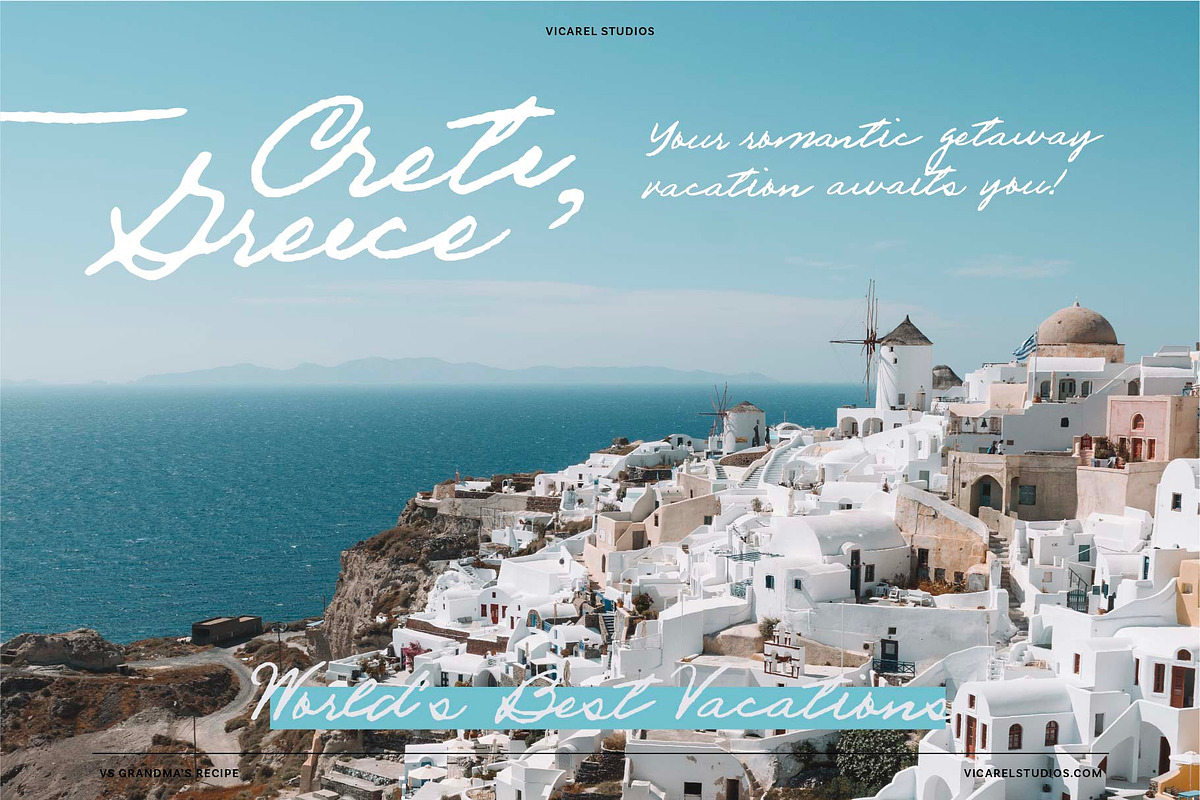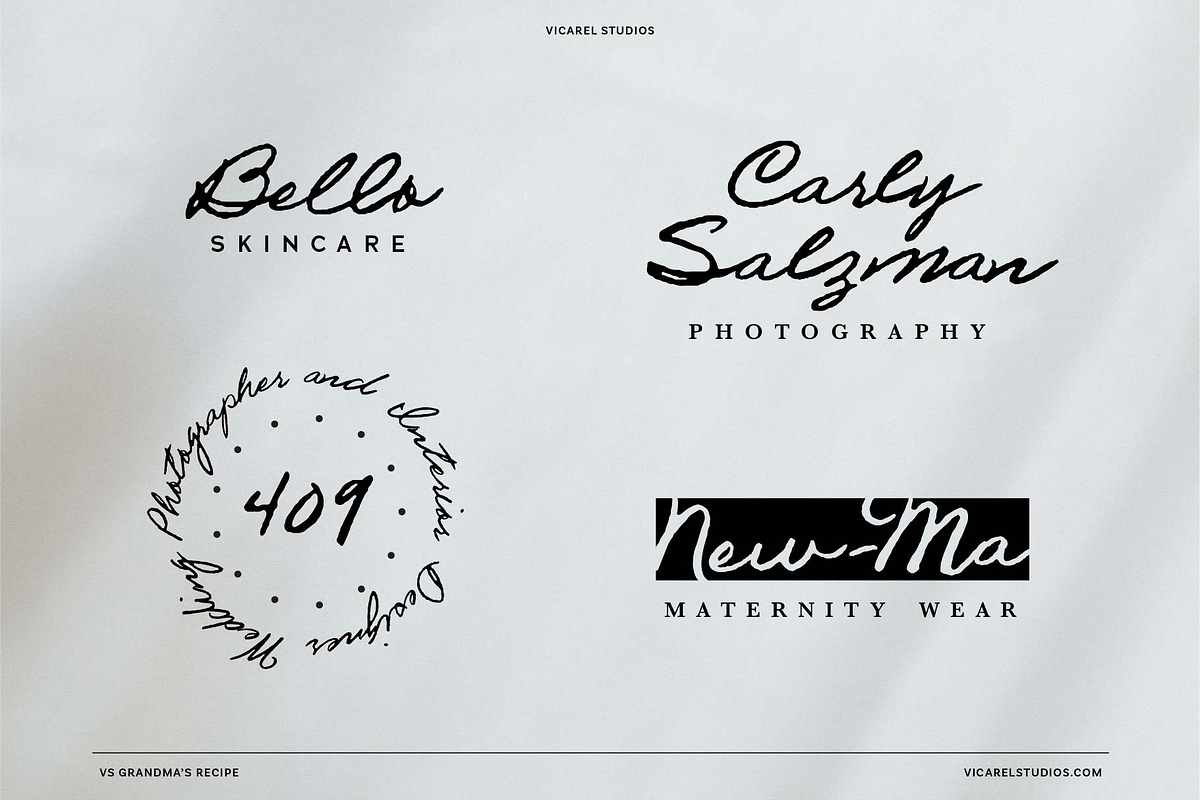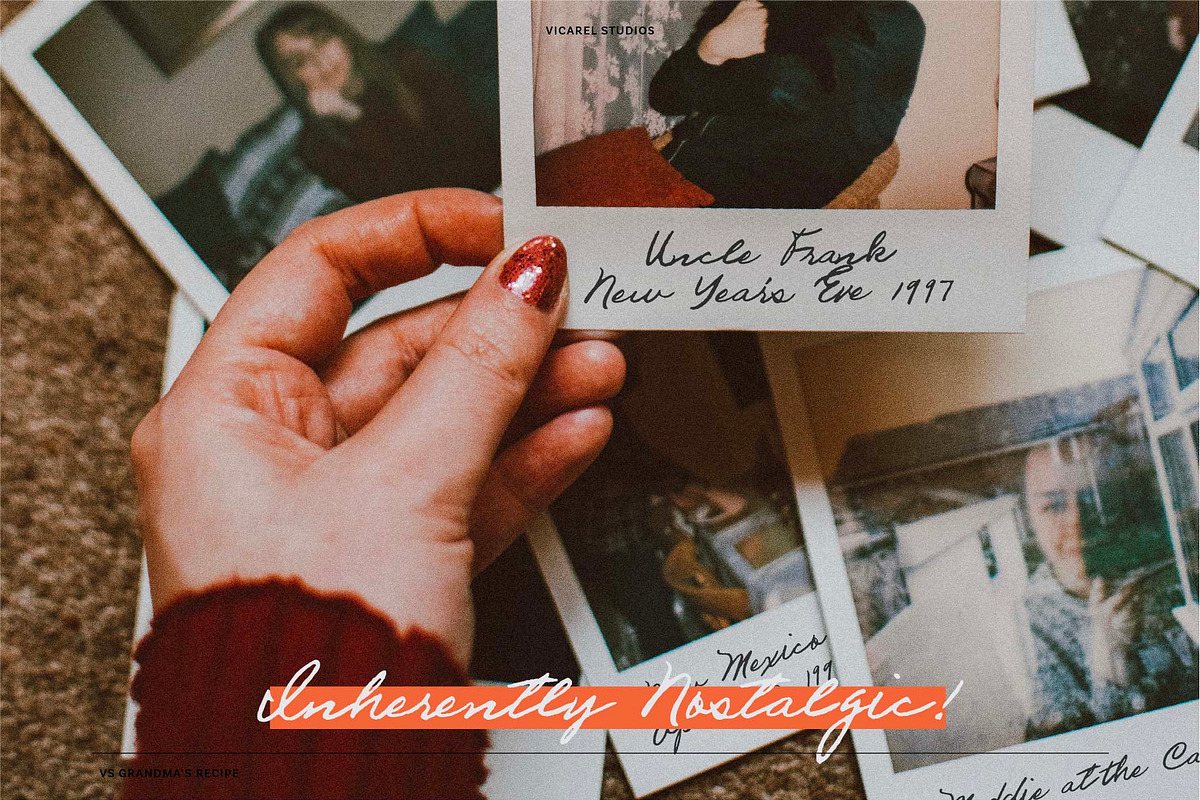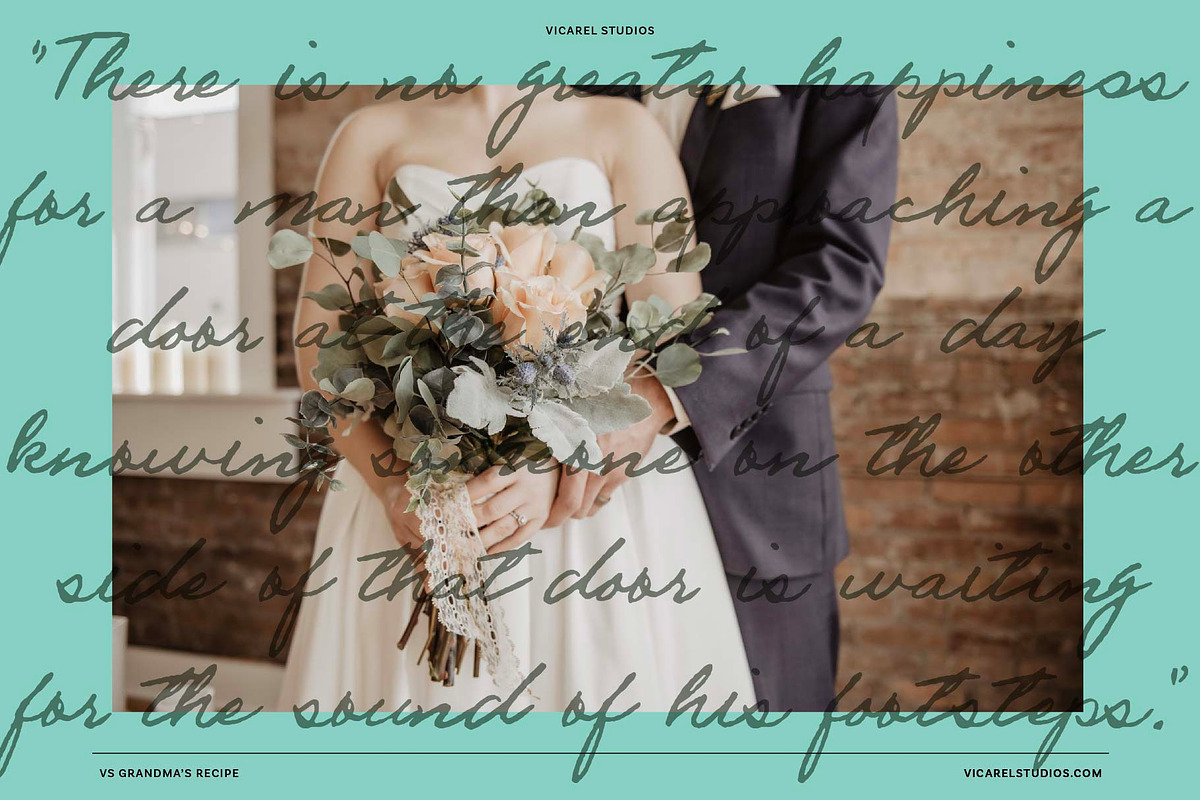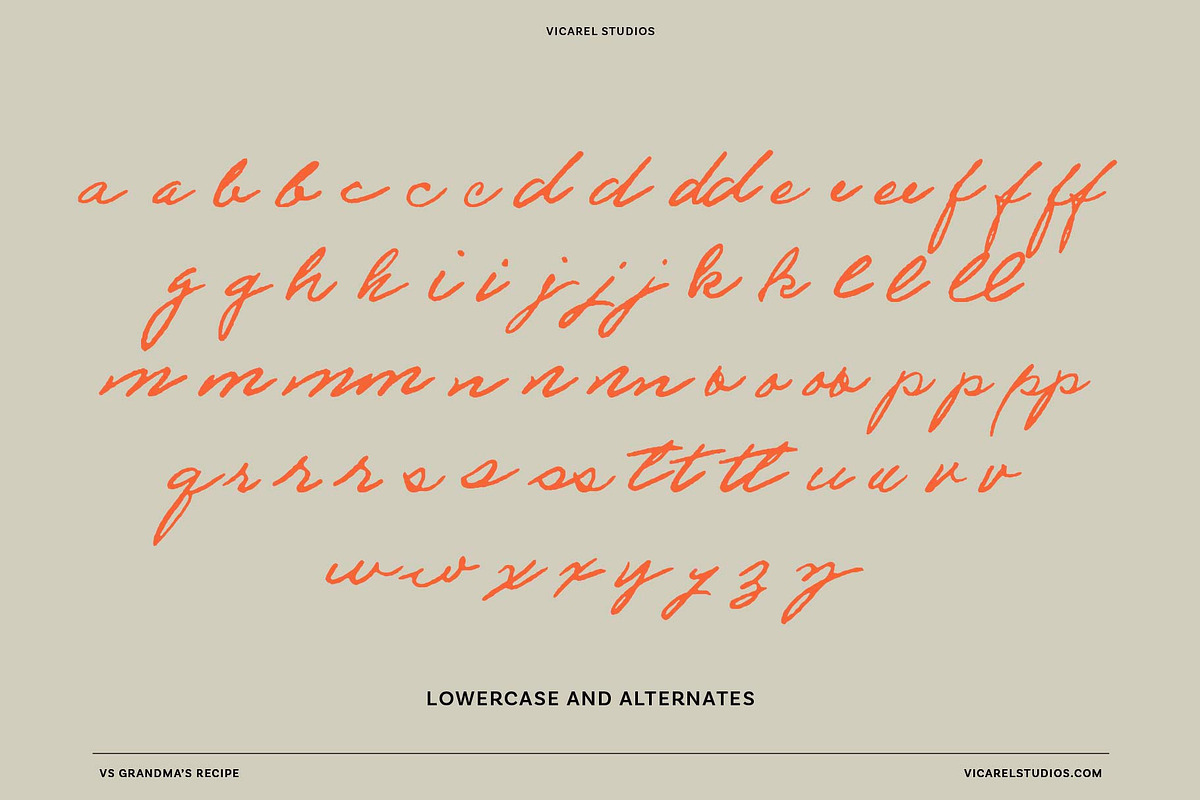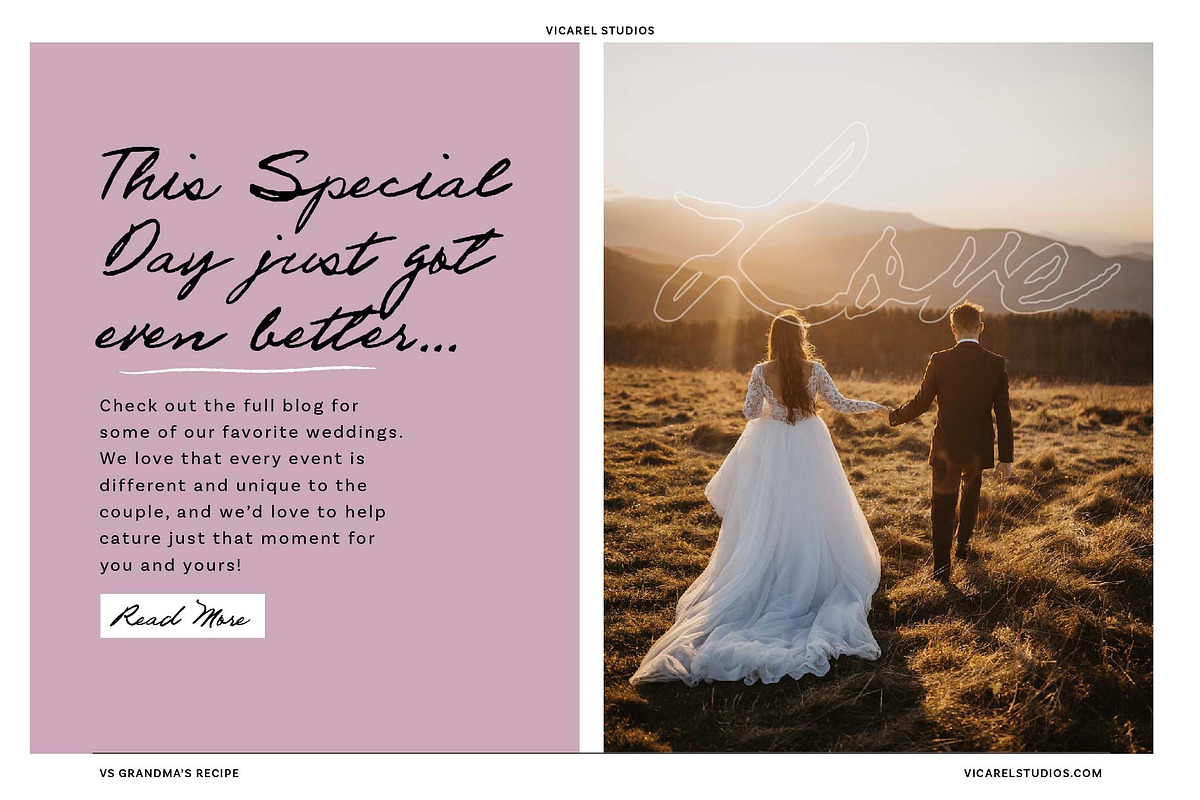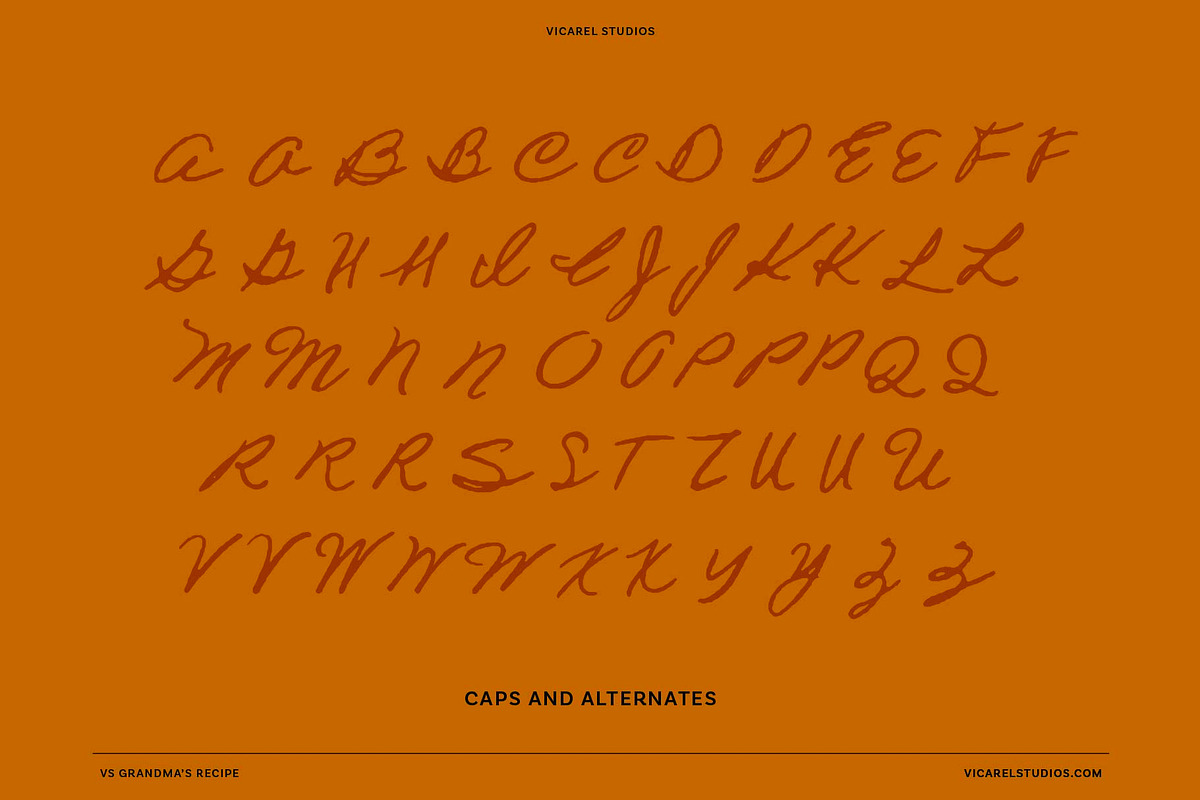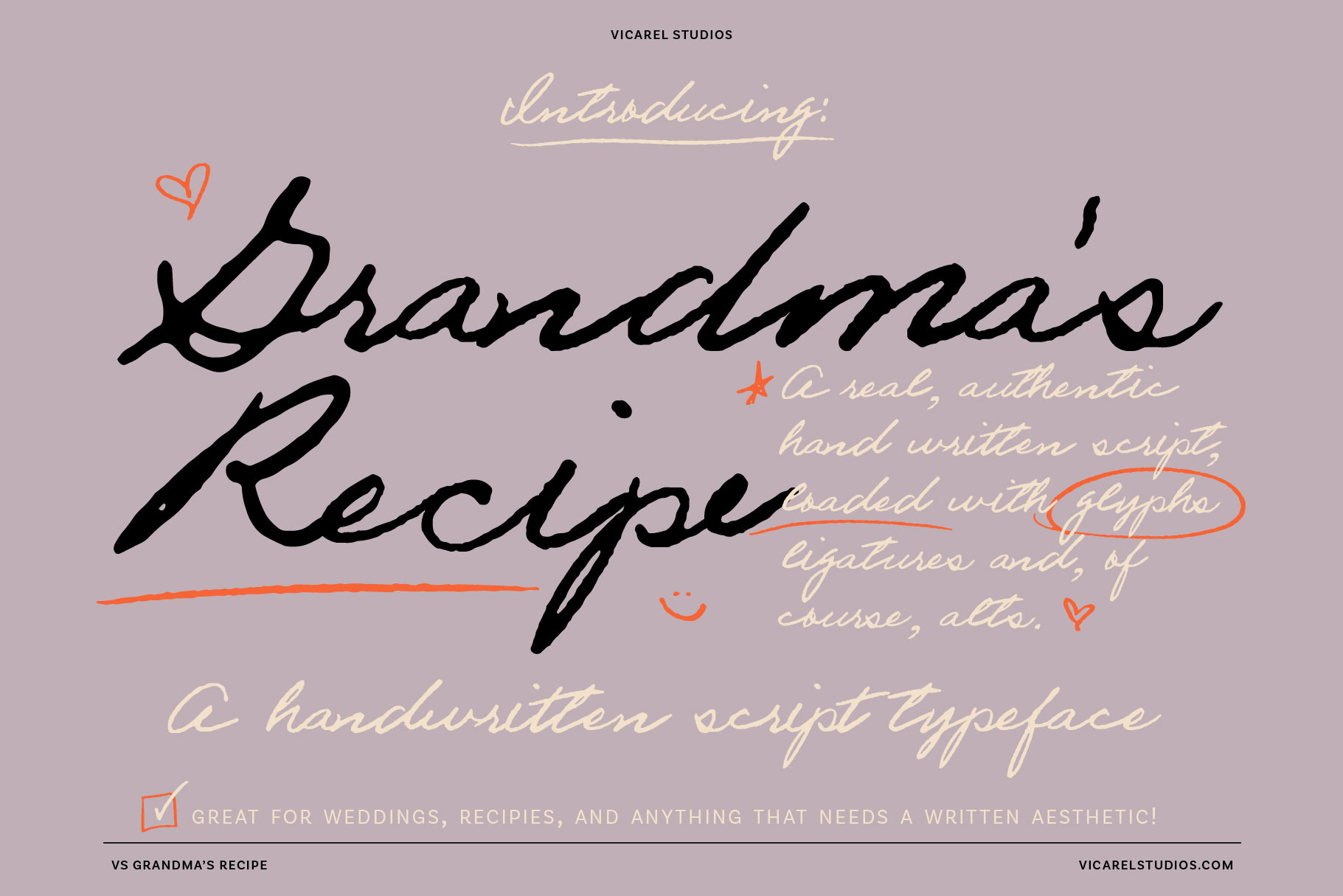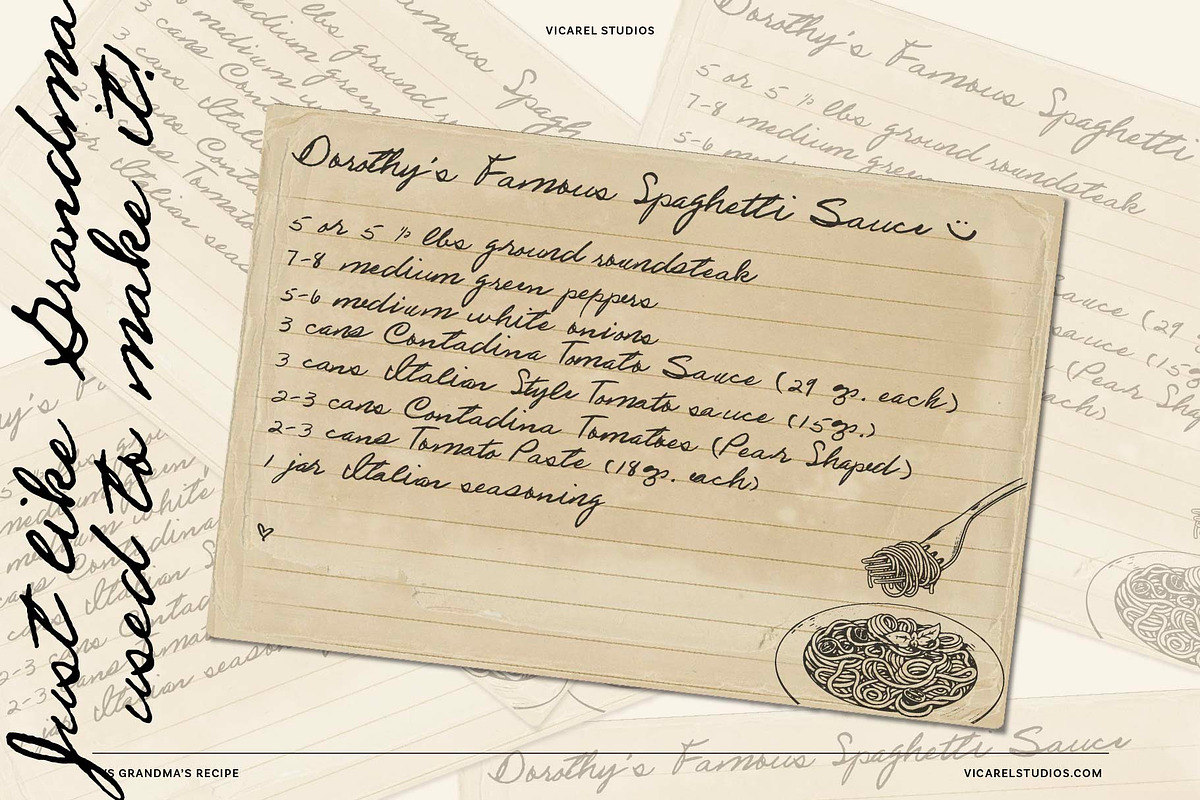
VS Grandma's Recipe Handwritten Font
Vicarel Studios: Grandma’s Recipe OTF is a realistic handwritten script font inspired by the actual, beautiful handwriting of our (designer, Carly Salzman’s) grandma, Dorthy.
-Comes with a whopping 155 glyphs, alts and ligatures!
VS Grandma’s Recipe is a unique, handwritten script font that highlights the inconsistencies of true, authentic handwriting: inconsistent angles, imperfect line weight, inconsistent spacing, sporadic connecting and/or unconnected entrance and exit strokes, variability amongst letter forms, and a mildly inconsistent baseline, among other things.
VS Grandma’s Recipe offers 2-3 variations of every letter, number, and punctuation, enabling you to truly achieve the aesthetic of handwriting. These subtly different letterforms enable a word like “baseball” to have two different “b’s”, two different “l’s” and two different “a’s”, allowing for a truly realistic handwriting font style.
This beautiful handwritten script font has incredibly diverse applications, and it works great as headlines and body copy. VS Grandma’s Recipe is perfect for a bespoke logo design project, it’s the perfect handwritten font for wedding stationary, and it can be used as a beautiful handwriting font for liquor labels and other packaging projects. Additionally, use it for branding, packaging design, blogs, websites, apparel, and magazines for the wedding, travel, liquor, influencer, photography, vintage or apparel industries and so much more.
We think it pairs nicely with serif and sans typefaces, particularly those with low cap-hights. (Basic Sans or Mrs. Eaves, for example)